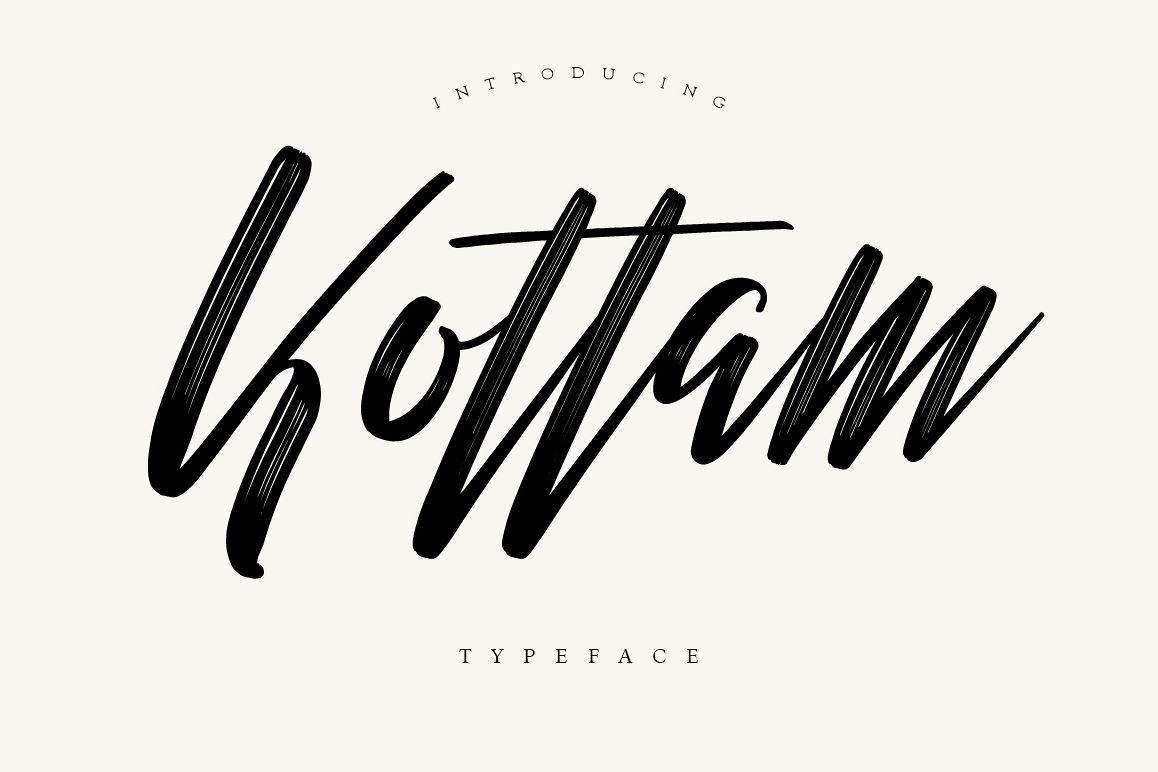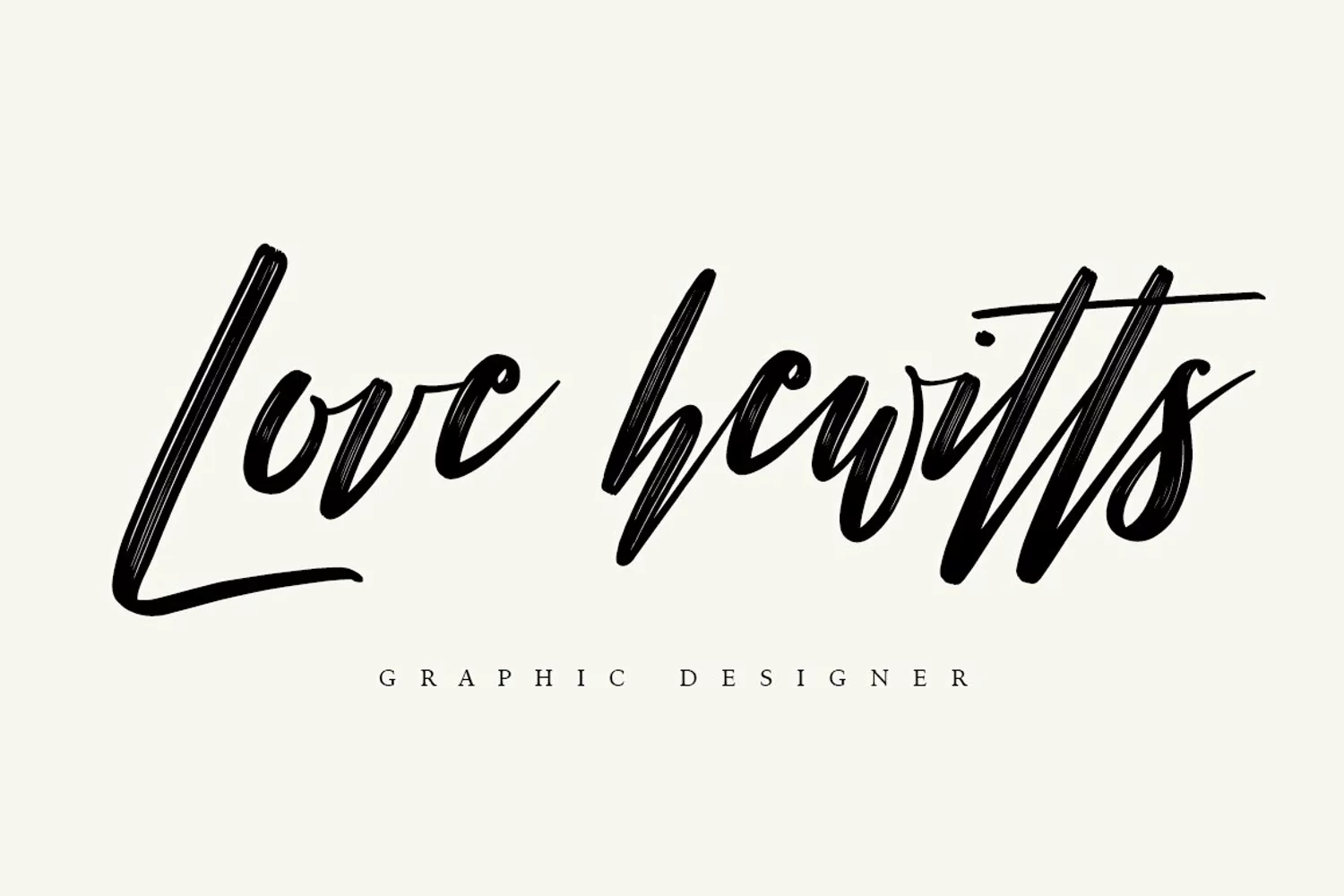
Kottam Typeface - New Update
by Maulana Creative
Give your designs an authentic brush handcrafted feel. "Kottam Typeface" is perfectly suited to stationery, logos and much more.